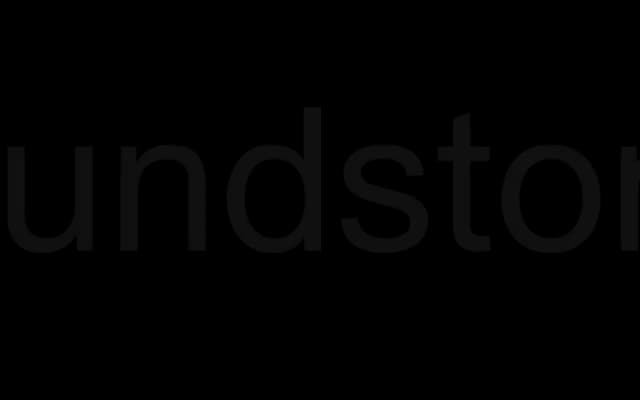
Union
Radim Pesko · 2001
A deliberate synthesis of Arial and Helvetica, occupying the middle ground between the two most ubiquitous sans-serifs of the PC and Mac era.
Designed by Radim Pesko, Union merges the contours of Arial and Helvetica into a single typeface intended to sit between the perceived vulgarity of Arial and the sophistication of Helvetica. Available in two weights, Regular and Bold, each with matching italics. Its conceptual premise is as clear as its form: a functional grotesque with an explicit lineage.
A synthesis of Arial and Helvetica, two canonical neo-grotesque sans-serifs, placing Union squarely in the grotesque tradition with a conceptual twist on its sources.